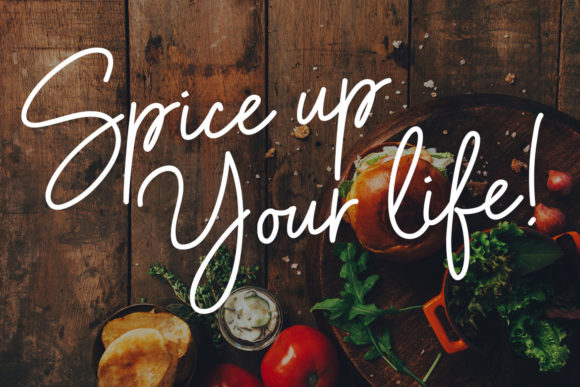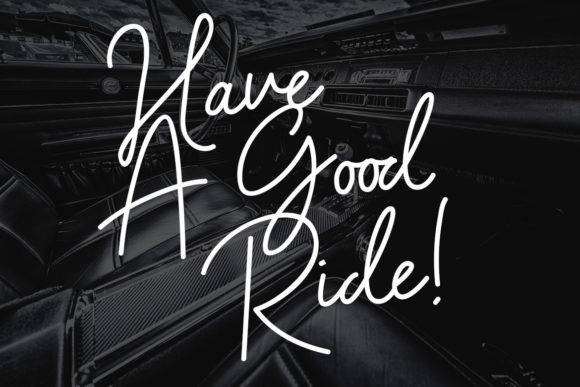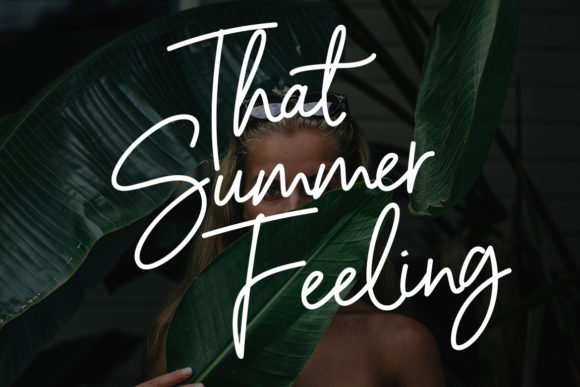
Introduction to Barcelony Font
The Barcelony is an elegant and smooth signature script.
It has a handwritten touch which will give your design a personal feel It’s perfect for branding projects, logos, wedding designs, social media posts, advertisements, product packaging, product designs, labels, photography, watermarks, invitations, and much more.
Barcelony Font offers exceptional quality and versatility, making it a valuable addition to your design toolkit. Whether you’re creating for personal projects or commercial use, Barcelony Font delivers professional results.